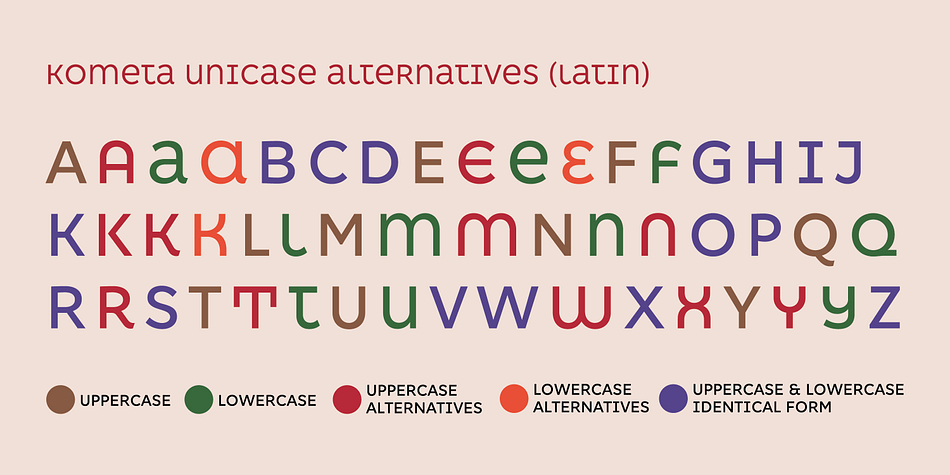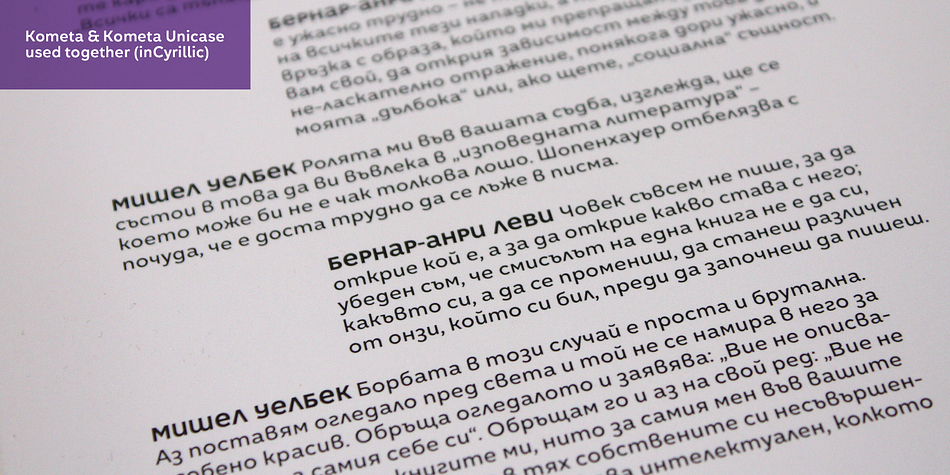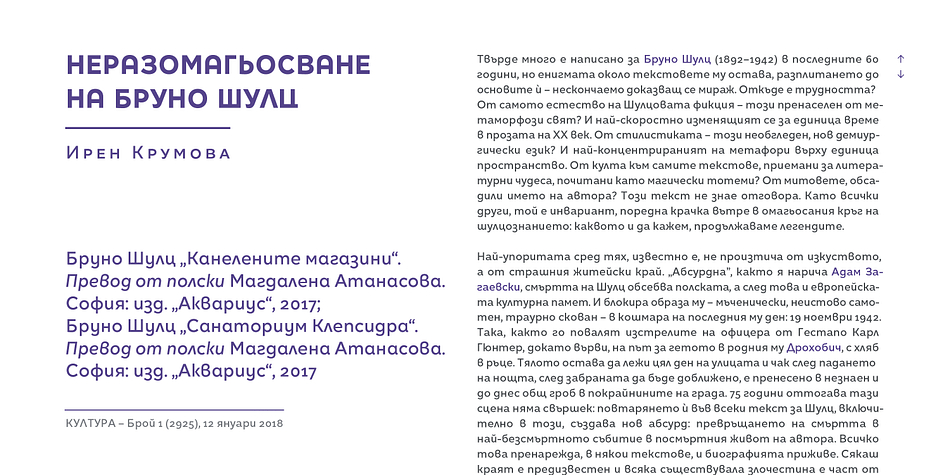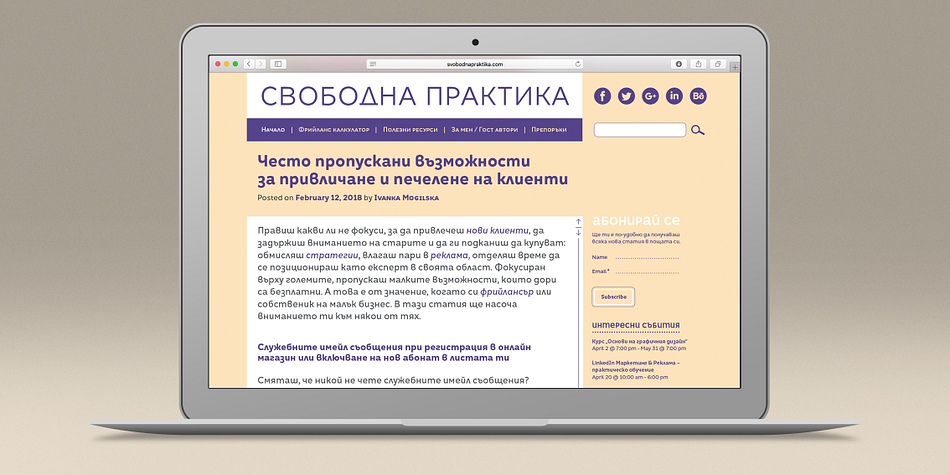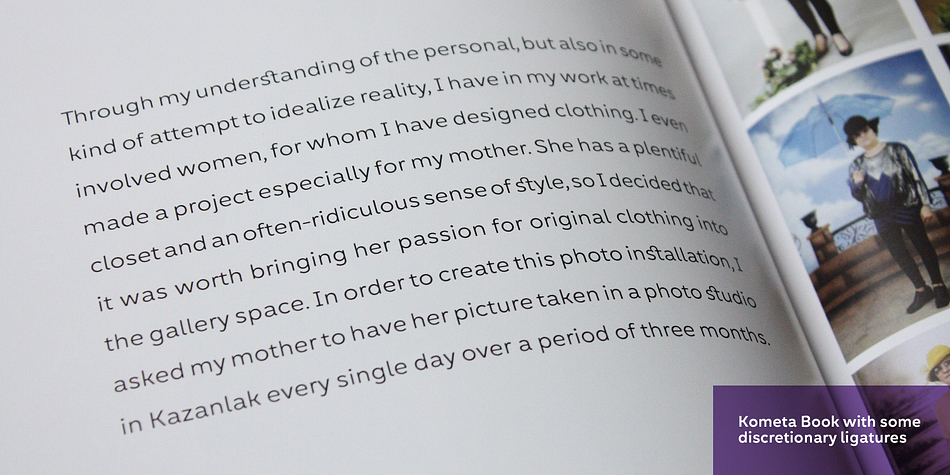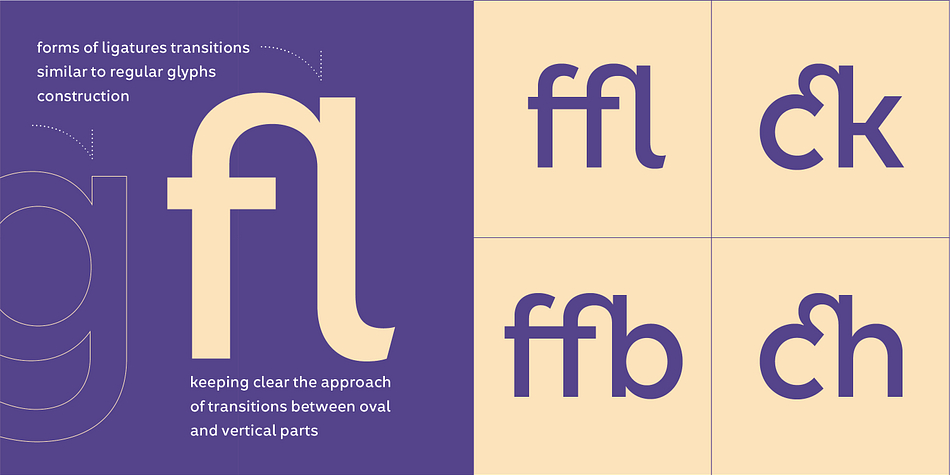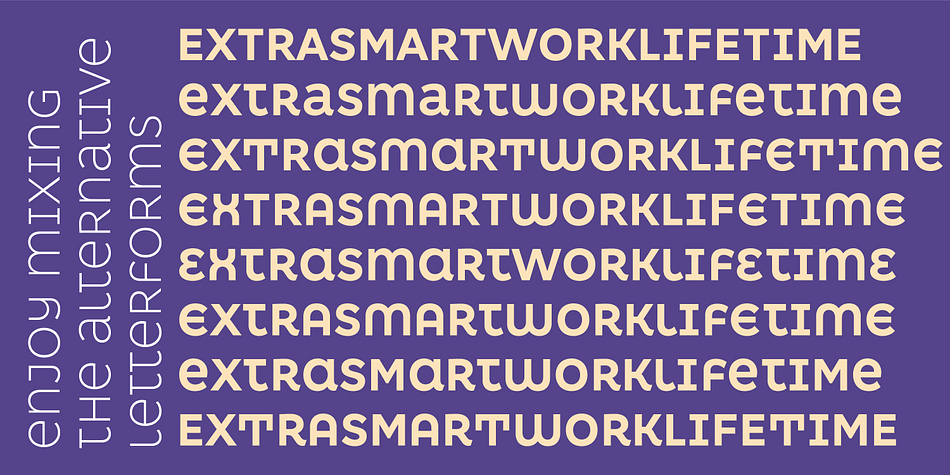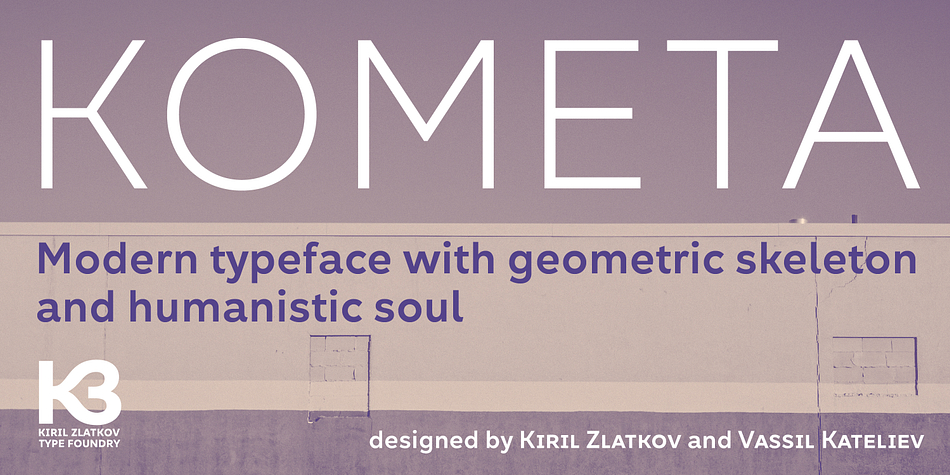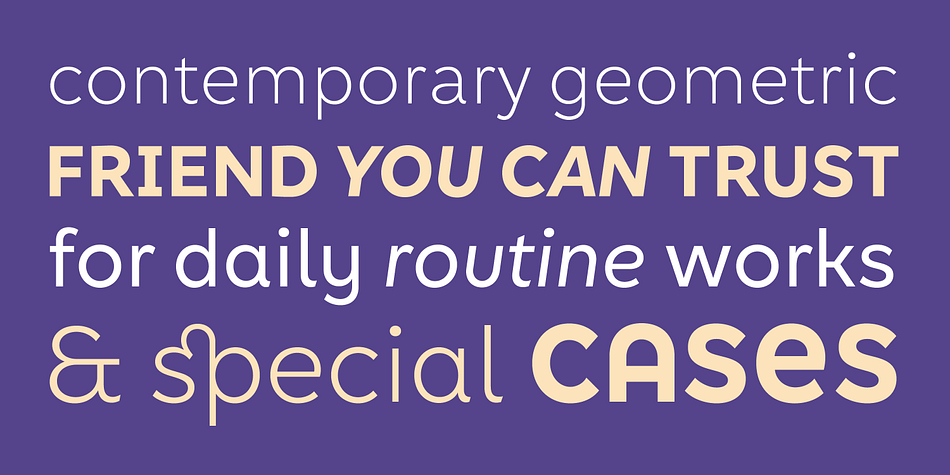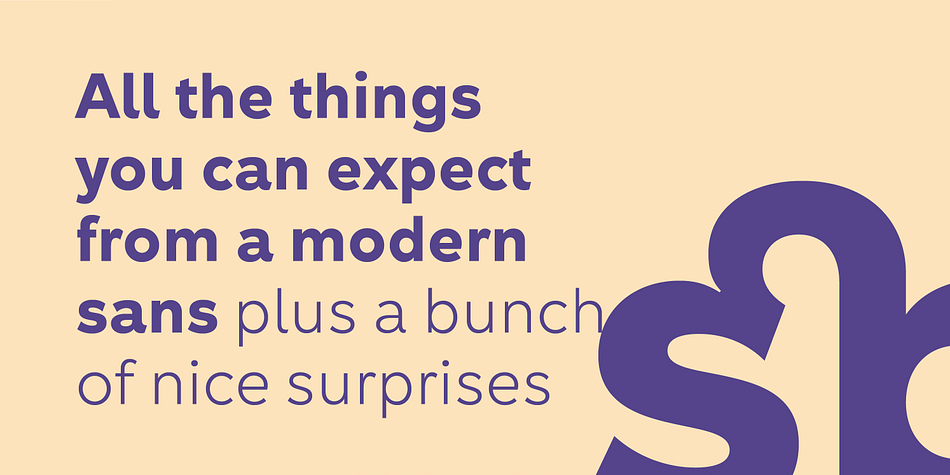
Designed by Vassil Kateliev and Kiril Zlatkov, Kometa is a sans serif and display sans font family. This typeface has twenty-one styles and was published by Kiril Zlatkov Type Foundry.
Kometa Sans is a contemporary grotesk with a certain personality. She has a steady geometric skeleton, but its appearance is rather humanistic. The precise details of the artwork, the carefully drawn true italics, the six types of numerals, the variety of alternates, the broad range of open-type features and the extensive glyph set can meet most of the contemporary typographer’s demands for a neutral, but not boring type family for both long text and display use. Among the distinctive qualities of Kometa are also the forms of ligatures (both default and discretionary). They follow the natural constructive transitions between oval parts and stems, which is an advantage to mark, at least for designers who respect the beauty of clean forms.
Note the specially designed Kometa Unicase sub-family, substantially enough to exist as a separate typeface. Its elegant and expressive letterforms are boosting further the power to create outstanding design work. Kometa Unicase has original and playful, yet reasonable approach to letterforms variety.
Kometa has a very broad usability range – from logotypes and poster designs to corporate identities and complex editorial projects. The contemporary Cyrillics of Kometa allows easily completion of graphically consistent multilingual corporate and artistic design projects.
Designed by Kiril Zlatkov and Vassil Kateliev.